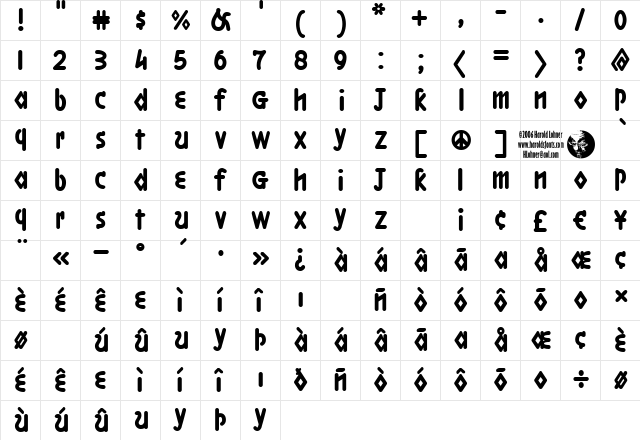
Boston LineBold Regular
Design Context for Boston LineBold Typeface
Boston LineBold is a composed and adaptable typeface that performs quietly and consistently across a wide range of design contexts. The heavy weight commands attention and anchors typographic hierarchies.